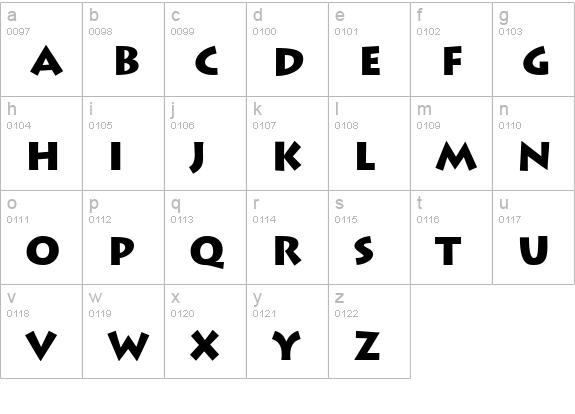
LiddieBlack Regular Font Details
LiddieBlack Regular is the standard, neutral variant in the LiddieBlack typeface family \xE2\x80\x94 well suited to general body text, paragraphs, and standard typographic work.
LiddieBlack Regular font is a striking and versatile typeface that effortlessly combines elegance with modernity. Its sturdy letterforms and clean lines make it a perfect choice for a wide range of design projects, from branding to editorial design and beyond. The font exudes a sense of sophistication and professionalism, making it ideal for creating impactful visual communication. What sets LiddieBlack Regular font apart is its unique blend of classic and contemporary elements, giving your designs a timeless appeal. Whether you're working on a sleek corporate identity or a stylish editorial layout, this font will elevate your designs to new heights. The best part? LiddieBlack Regular font is available for free download at FontsMarket.com, allowing you to access this premium typeface without any cost. Don't miss out on the opportunity to add this versatile font to your collection and take your designs to the next level.